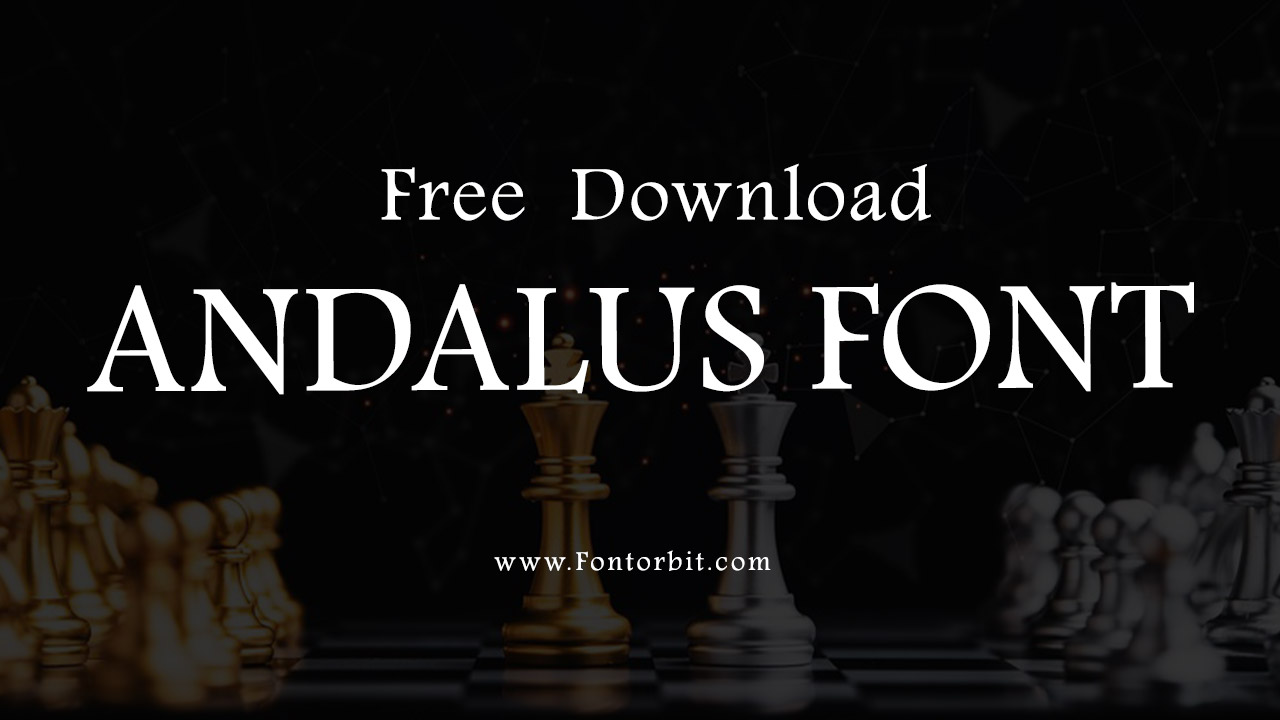
Andalus is a versatile typeface with a unique blend of traditional and contemporary design elements. Designed by the Arabic type designer Mohammad Alagha and Mamoun Sakkal this font was first published by the Microsoft Corporation. As part of the larger Andalus font family, it offers both legibility and aesthetic appeal.
Andalus Font Family Includes
Andalus is available in various weights and styles, making it suitable for a wide range of design needs. The font family list includes:
a. Andalus Regular
Notable Uses Of Andalus
- Advertising
- Logo Design
- Headlines and Titles
- Business Cards
- Labels
- Watermarks
- Public Transportation
- Reports and Records
- Books and Long Text
- Student Projects
Andalus is a highly adaptable and elegant typeface, offering both readability and a touch of sophistication. Its diverse applications—from advertising and logo design to books and business cards—make it a valuable asset for designers and professionals alike.
Whether you’re crafting a polished business presentation or an engaging invitation, Andalus provides a refined and versatile solution. Its wide range of uses and compatibility with various design needs ensure it remains a popular choice for a broad spectrum of projects.
5.Can Andalus Be Used For Print Design?
Yes, it works well for both print and digital designs.
6.Does Andalus Support Multiple Languages?
Andalus primarily supports Arabic script.